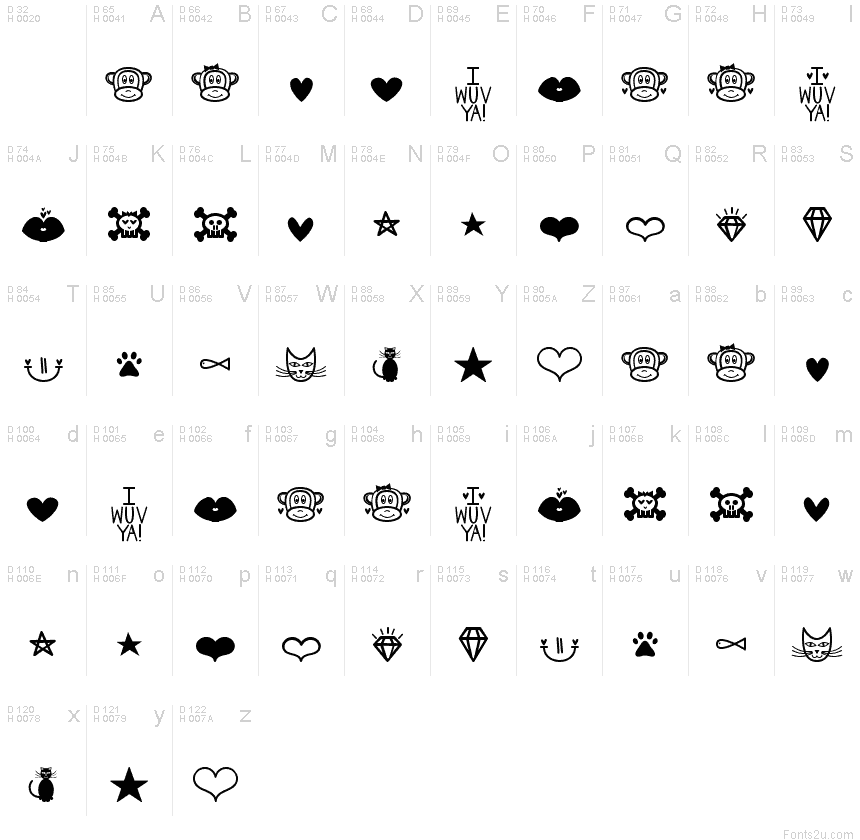
MF Dings 2 by Misti Hammers of Misti's Fonts is a free pictorial dingbat font filled with cheerful, hand-drawn symbols. Monkey faces, hearts, paws, diamonds, stars, lips, and fish share rounded outlines and a lively mix of solid and open shapes.
A playful accessories brand could use the set across packaging, stickers, and merchandise, where the icons can function as badges or repeating decoration. It also suits children's events and casual social posts with a sweet, upbeat theme. Those love, animal, and jewel motifs give them a gift-like theme.
This ding set includes all the special characters from my previous fonts: I Love You, Monkey, Rebel Chick, Bright Like A Diamond, The Curious Cat, and Soul Meets Body.